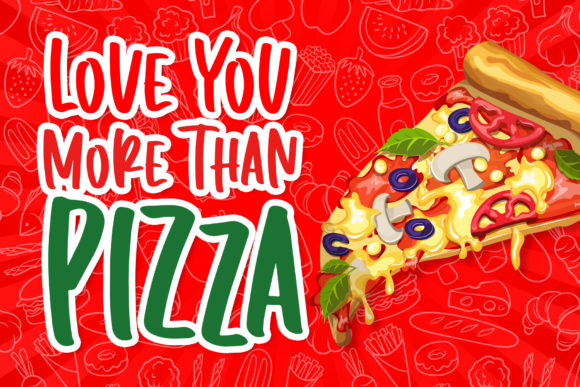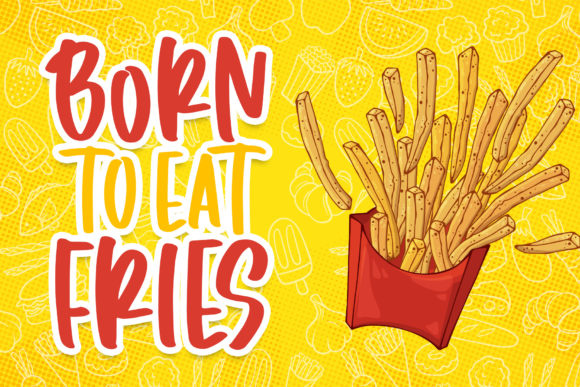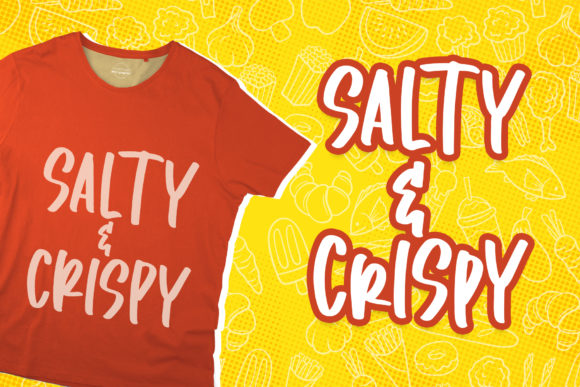
Introduction to Hungry Brush Font
Have you ever found yourself staring at a blank page, eager to bring your creative project to life, but struggling to find the perfect font to set the tone? I’m sure many designers can relate to this feeling. It’s like searching for the missing piece of a puzzle that will make your design truly shine.
That’s where the Hungry Brush Font comes in – a delightful, playful display font that adds a touch of whimsy to any design. With its asymmetrical charm and high-quality design, it’s no wonder why designers are flocking to this free download. Whether you’re creating a children’s book cover, a poster for a cartoon character, or just a simple quote with a transparent background, the Hungry Brush Font is an excellent choice for any creative endeavor.
As a valuable design resource, the Hungry Brush Font offers a world of possibilities for designers looking to add a unique touch to their projects. Its free download and versatility make it an excellent addition to any design arsenal.
Key Features of Hungry Brush Font
- High-quality design resource suitable for various creative projects, including digital art, graphic design, and typography.
- Features a unique, hand-drawn style with a transparent background, ideal for designers who want to add a personal touch to their work.
- Perfect for designers who want to add a creative, artistic touch to their work, without sacrificing high-quality results.
- Includes a comprehensive character set, including uppercase and lowercase letters, numbers, and punctuation marks, making it a versatile design resource.
Honest Review: Hungry Brush Font
I recently stumbled upon the Hungry Brush Font, and I must say it’s a fantastic design resource for any creative project. The high quality of the font is immediately noticeable, making it perfect for those who want to elevate their designs.
One of the standout features of this font is its transparent background, which allows it to blend seamlessly into any design. This makes it ideal for use in digital products, logos, and even print materials.
Here are some of the things that work well:
- High-quality design that looks great in any size or resolution
- Transparent background for easy integration into any design
However, I do have to mention a few limitations:
- Limited character set, which may be a concern for designers who need a wide range of characters
- Not ideal for use in small text sizes, as it can become difficult to read
Overall, I’m impressed with the Hungry Brush Font. It’s a great addition to any designer’s toolkit, and I’m excited to see how it will be used in future creative projects.
Tips for Getting the Most Out of the Hungry Brush Font
To get the most out of the Hungry Brush Font, experiment with different font sizes, colors, and combinations with other design resources. You can also use the font to create a consistent design style throughout your project.
Common Use Cases for the Hungry Brush Font
The Hungry Brush Font is ideal for creating designs for food-related businesses, such as restaurants, cafes, and bakeries. It’s also a great choice for designers who want to add a touch of whimsy and creativity to their projects.
Is the Hungry Brush Font suitable for designs with transparent backgrounds?
Yes, the Hungry Brush Font features a transparent background, allowing for easy layering and blending with other design elements. This makes it an ideal choice for designers working on creative projects that require a high level of visual cohesion and sophistication.